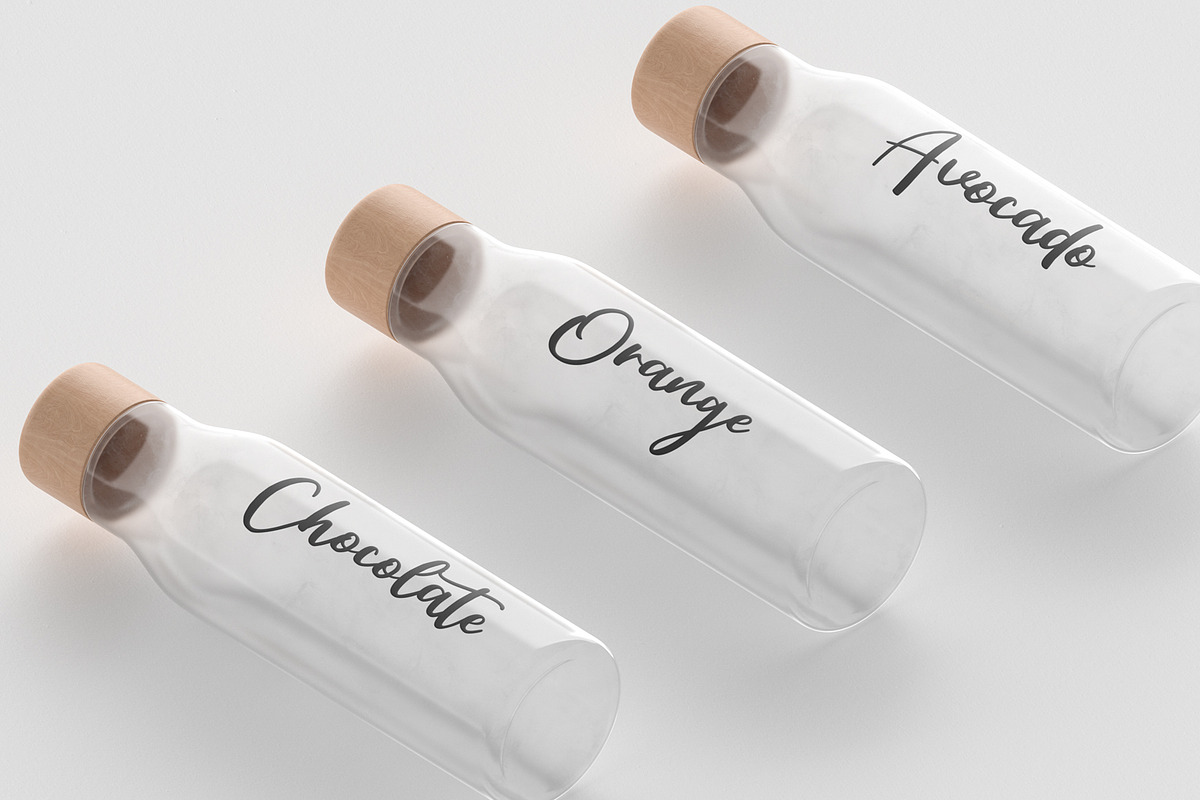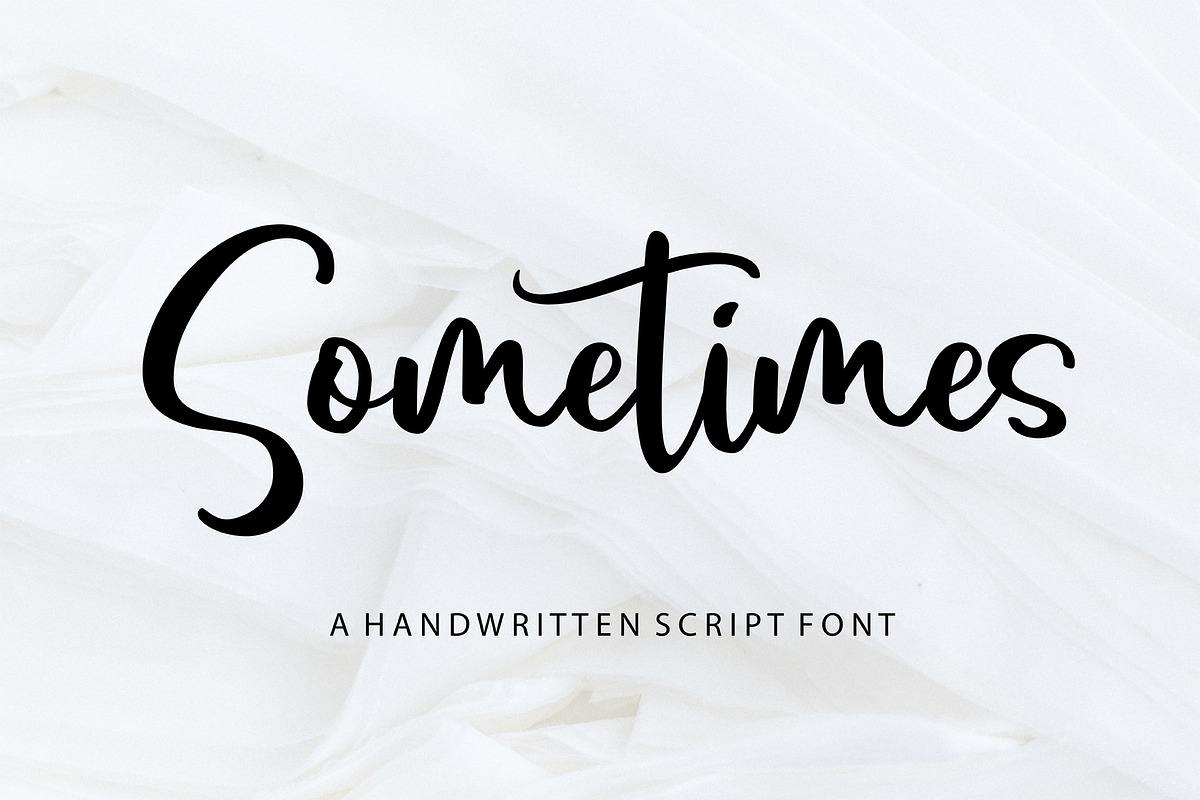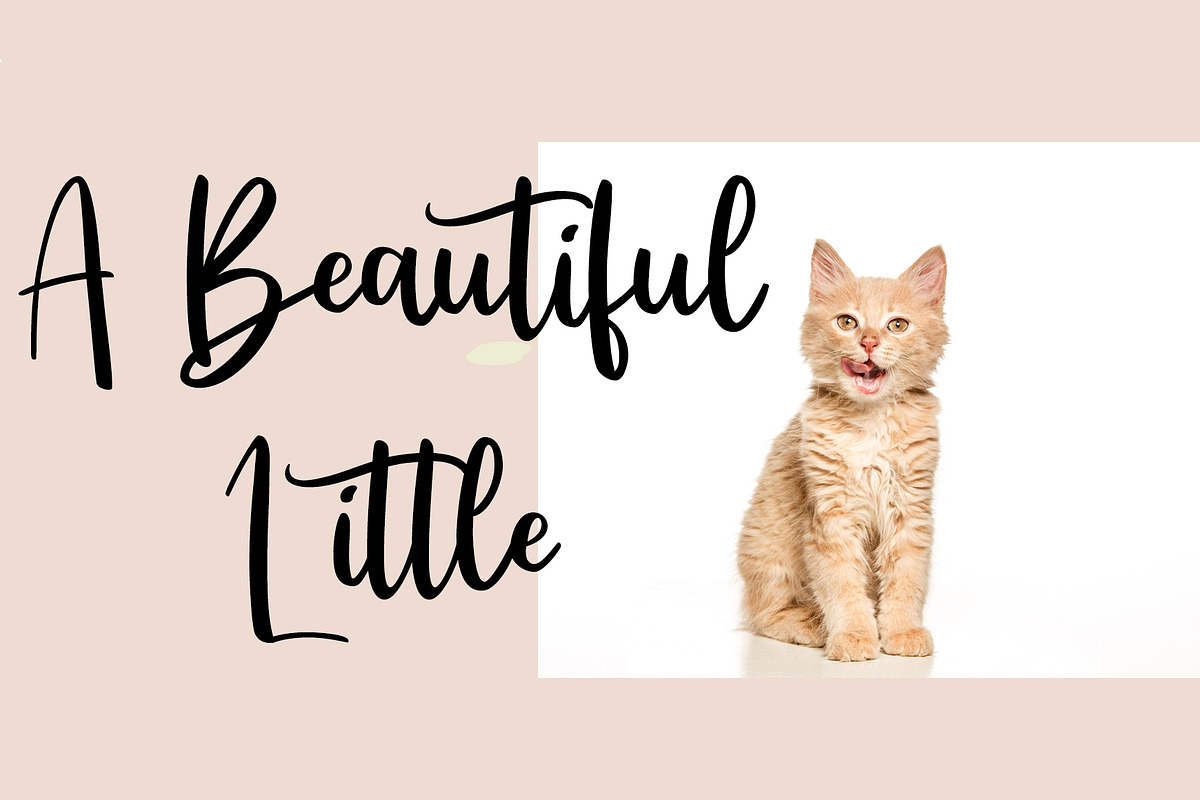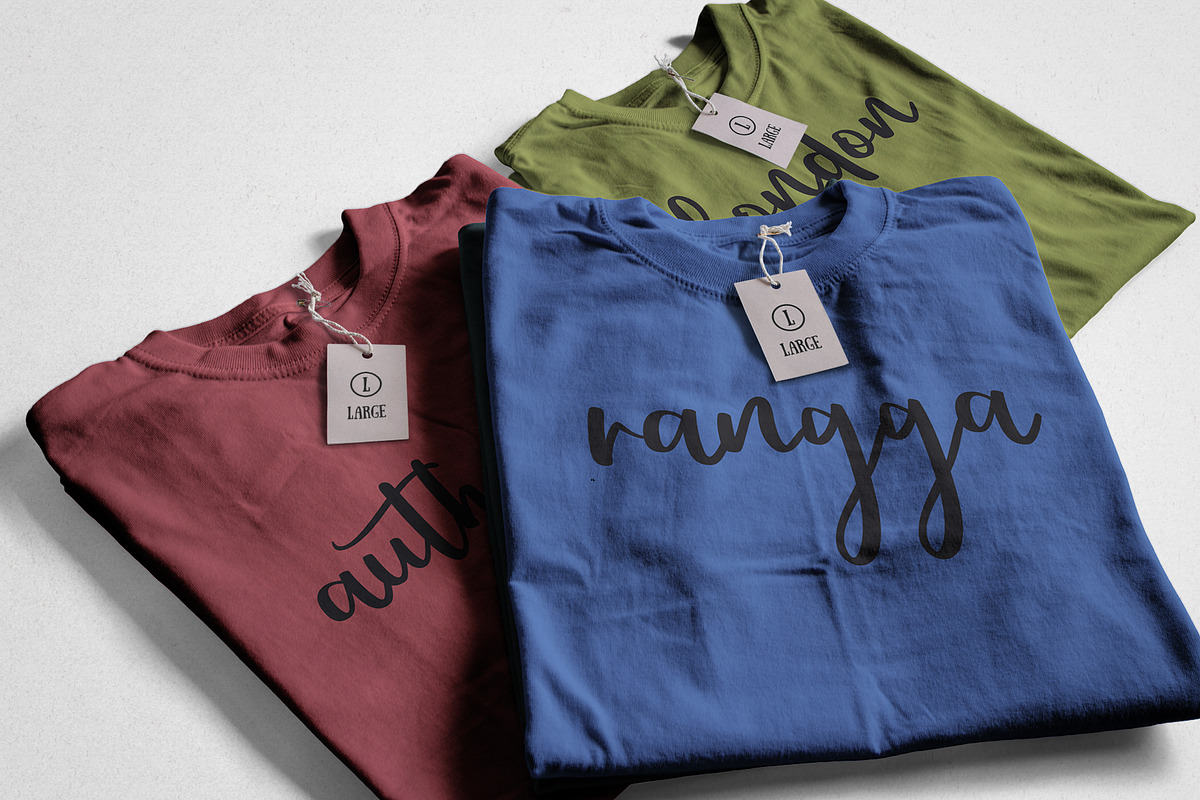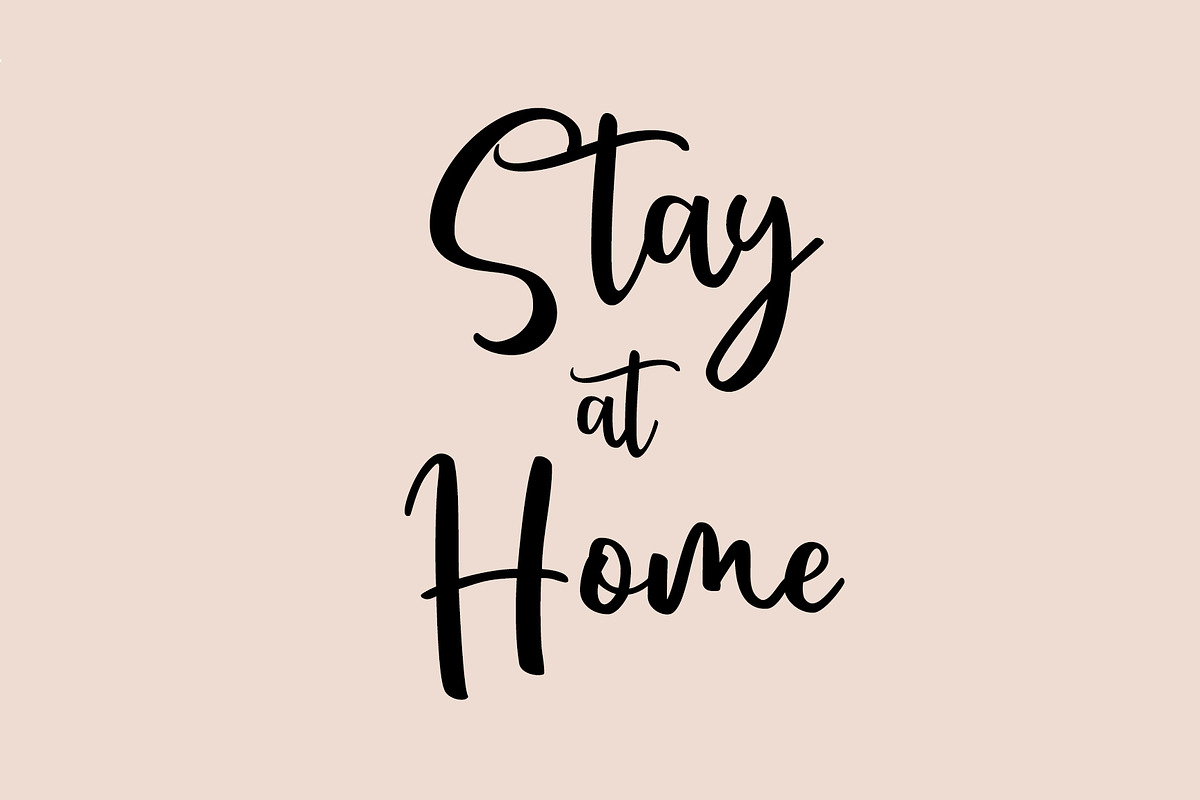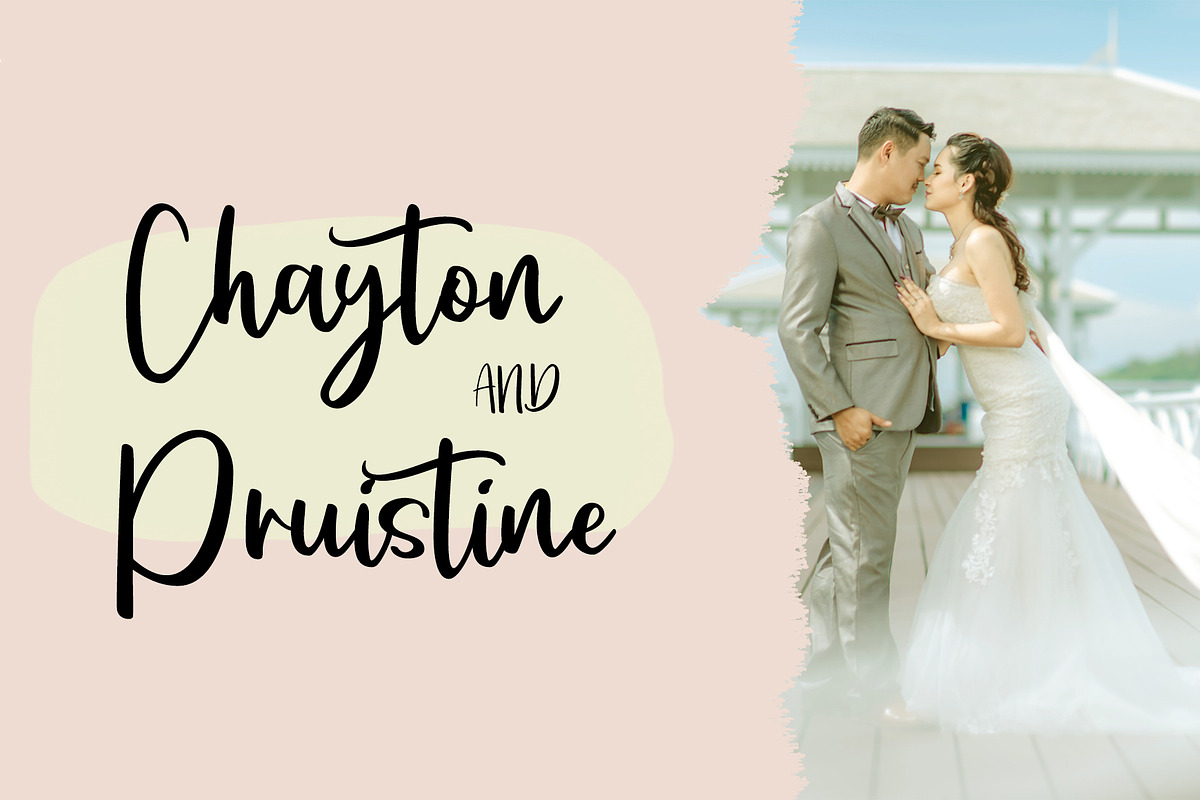
Sometimes | Handwritten Font
Sometimes is a slick and fun handwritten font. It has a modern calligraphy look making it perfect for branding and digital design. Use this font for logos, quote, social media, websites, blogs, magazines, instagram, business cards, branding and more!
This font is modern, simple, but still authentic. You will get full set of lowercase and uppercase letters, numerals and punctuation, multilingual symbols, lowercase and ligatures. Inside the files :